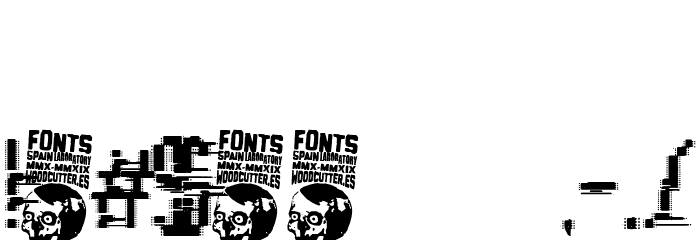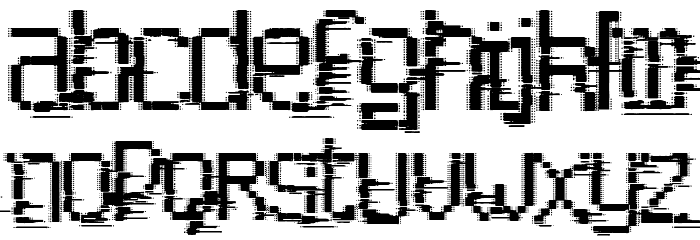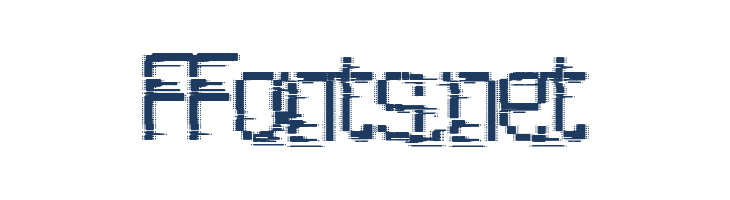
Cortocircuito Font
This font exhibits a highly distorted and glitchy appearance, reminiscent of digital errors or static interference. The characters are fragmented and appear as if they are being disrupted by electronic noise, creating a chaotic yet intriguing visual effect. The uppercase and lowercase letters maintain a consistent level of distortion, with jagged edges and irregular spacing that contribute to its unique style. Numbers and special characters follow the same aesthetic, ensuring a cohesive look across all glyphs. This font is ideal for projects that aim to convey a sense of digital disruption or avant-garde design.
| Overall Style | Modern, Experimental |
| Use Case | Logos, Posters, Digital Art |
| Proposed Projects | Ideal for digital art, experimental design projects, album covers, or any creative work that embraces a chaotic, tech-inspired theme. |